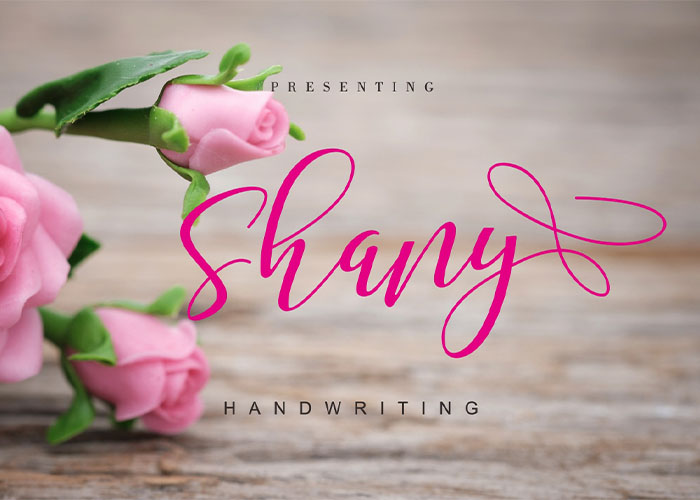
Shany is a free commercial handwritten and cursive font with a modern, hand-crafted feel. Its irregular, flowing letterforms and natural connections make it ideal for logotypes, invitations, packaging, apparel, social graphics, and more.
- Modern handwritten / cursive style
- Uppercase & lowercase letters
- Figures & punctuation
- Stylistic alternatives & contextual alternates
- Ligatures
- Logos and logotypes
- Wedding invitations and greeting cards
- Posters and banners
- Business cards and stationery
- Merchandise and apparel prints
- Blogs, quotes, and social media graphics
- Water-based paint designs and other creative prints